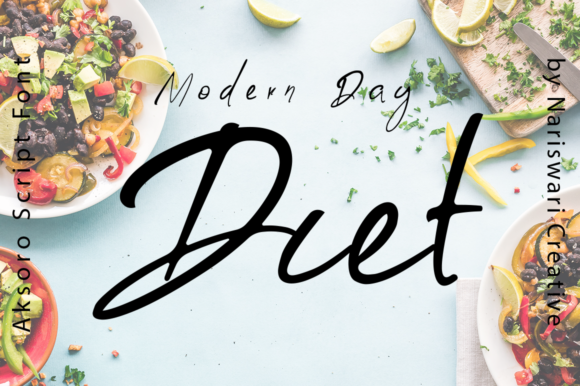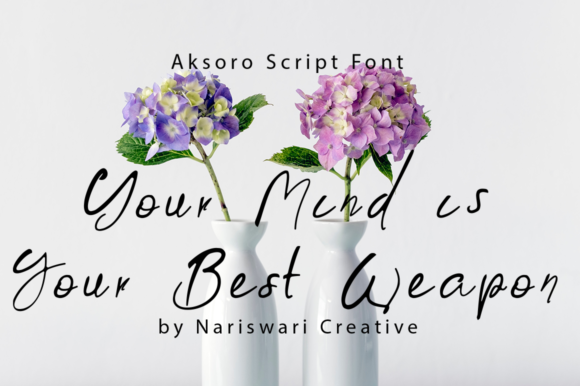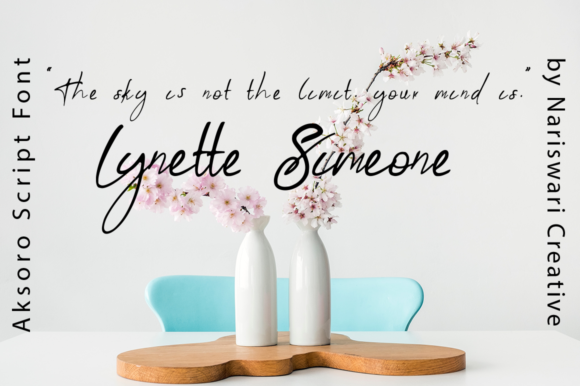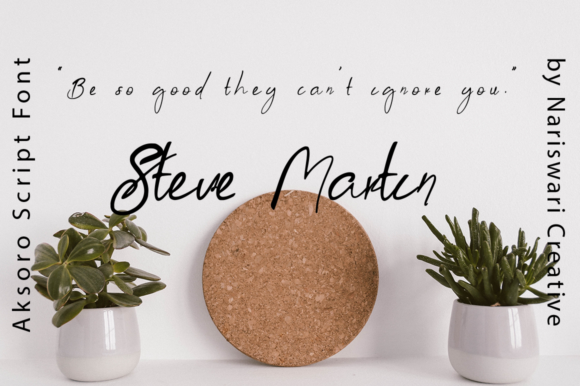
The Designer’s Delight: Uncovering the Elegance of Aksoro Font
I’ll never forget the struggle I faced while working on a branding project for a luxury client. The brief required an elegant, handwritten font that exuded sophistication and refinement. As I scoured the internet for the perfect fit, I stumbled upon Aksoro Font – a hidden gem that quickly became my go-to choice. In this article, I’ll share my experience with Aksoro, its features, and how to make the most of this beautiful font in your designs.
A Personal Review: What I Love About Aksoro
Aksoro Font has won my heart with its unique blend of elegance and playfulness. Here are some aspects that make it a standout:
- ✨ Elegant handwritten feel with a touch of sophistication
- 💫 Beautifully crafted to evoke a sense of luxury and refinement
- 🎨 Versatile and adaptable for various design projects, from logos to social media graphics
While Aksoro is an excellent font, it’s not without its limitations. Here are a few quirks to keep in mind:
- 🤔 Limited availability of condensed or italic versions, which might limit its use in certain projects
- ⚠️ Some characters may require manual kerning for optimal spacing
The Story Behind Aksoro: A Designer Inspiration
Aksoro Font was crafted with love and attention to detail by a talented designer who aimed to create a font that would evoke a sense of elegance and refinement. The designer’s inspiration came from classic calligraphy and handwritten scripts, blended with a modern twist. The result is a font that feels both nostalgic and fresh.
| Font Name | Aksoro Font |
| Author | Nariswari Creative |
- Q: What type of projects is Aksoro Font best suited for?
- A: Aksoro Font is perfect for logos, branding, social media graphics, and crafty DIY projects.
- Q: Is Aksoro Font suitable for body text?
- A: While Aksoro is highly legible, it’s best used for headings and titles. For body text, consider a more traditional font.